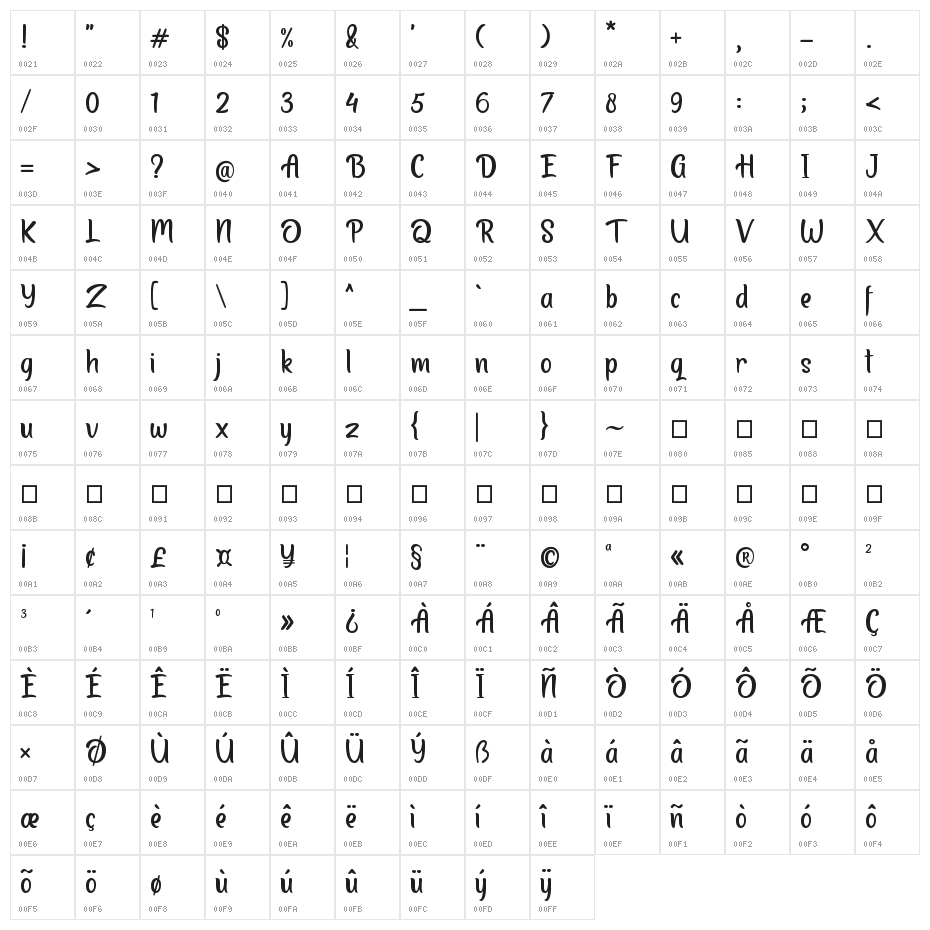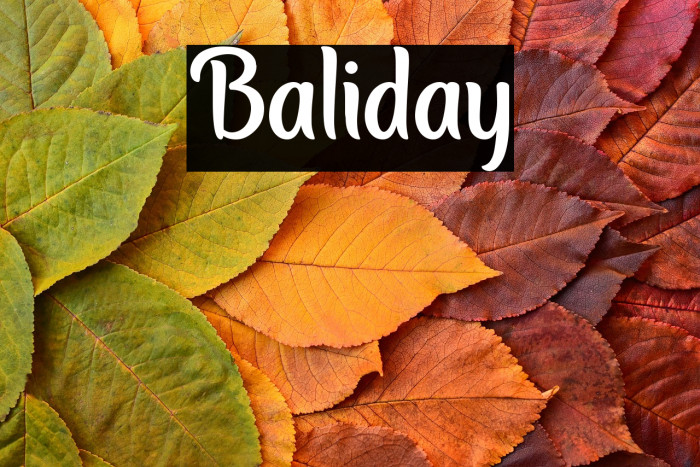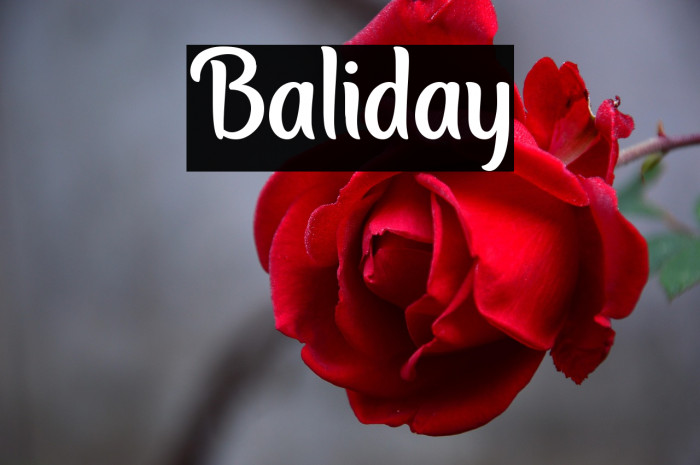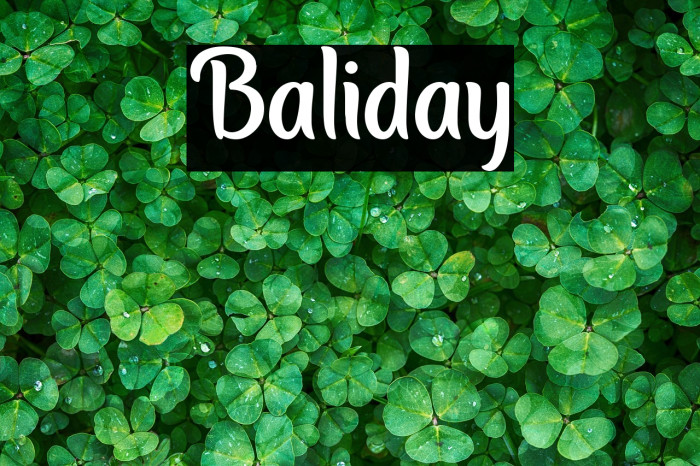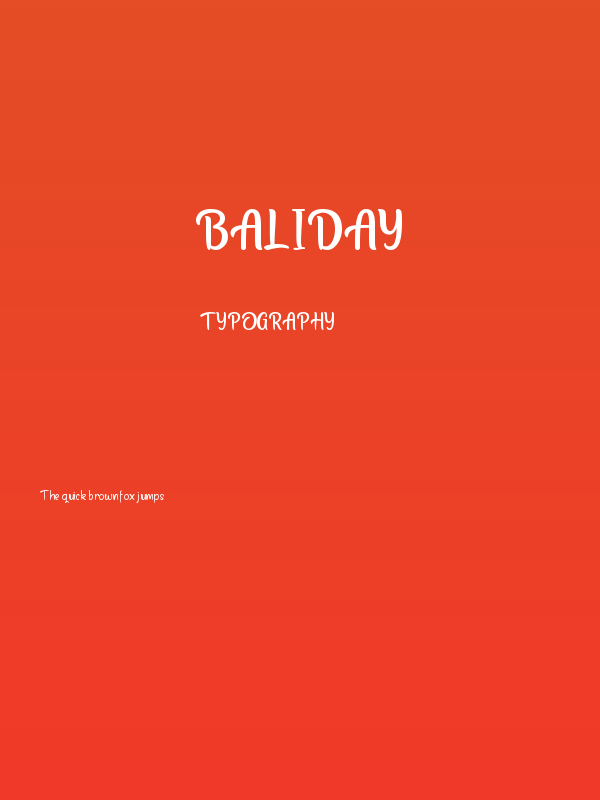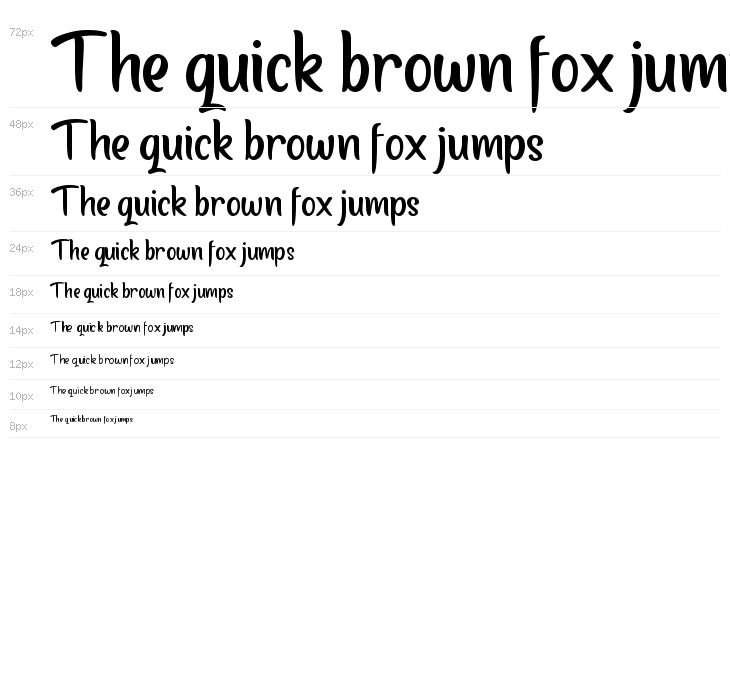
Baliday Font
Baliday Description
This font exudes a playful and casual vibe with its handwritten style. The letters are bold and rounded, giving a friendly and approachable feel. The uppercase and lowercase characters maintain a consistent style, with smooth curves and a slight slant that adds to the informal aesthetic. The numerals and special characters are equally well-crafted, ensuring uniformity across all glyphs. This font is perfect for projects that require a personal touch, such as invitations, greeting cards, or any design that aims to convey warmth and friendliness.
| Overall Style | Casual, Playful |
| Use Case | Headlines, Logos, Informal Text |
| Proposed Projects | Ideal for invitations, greeting cards, children's books, and casual branding. |